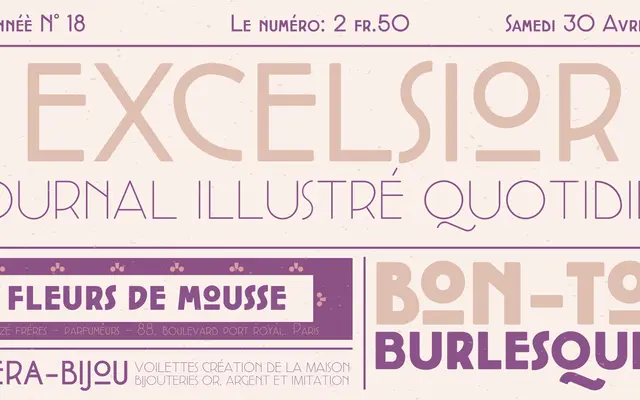
Cocotte
Zetafonts · Cosimo Lorenzo Pancini · 2017
A small caps display sans in three weights drawing on Arts and Crafts, Jugendstil and French Art Nouveau sources, offered in two stylistic variants.
Cocotte comes in a Regular style rooted in geometric Jugendstil and an Alternate style closer to French and Italian Art Nouveau, each with matching italics across Extralight, Regular and Heavy weights. It sits within Zetafonts' broader Coco Gothic family as the 1900 and 1910 historical variants, part of a decade-by-decade encyclopaedia of geometric sans styles. The character set covers 205 languages across Latin, Greek and Cyrillic scripts.
Described explicitly as a small caps sans serif display typeface, Cocotte draws on Art Nouveau and Jugendstil geometric sources, placing it firmly in the display category with a geometric sans construction.